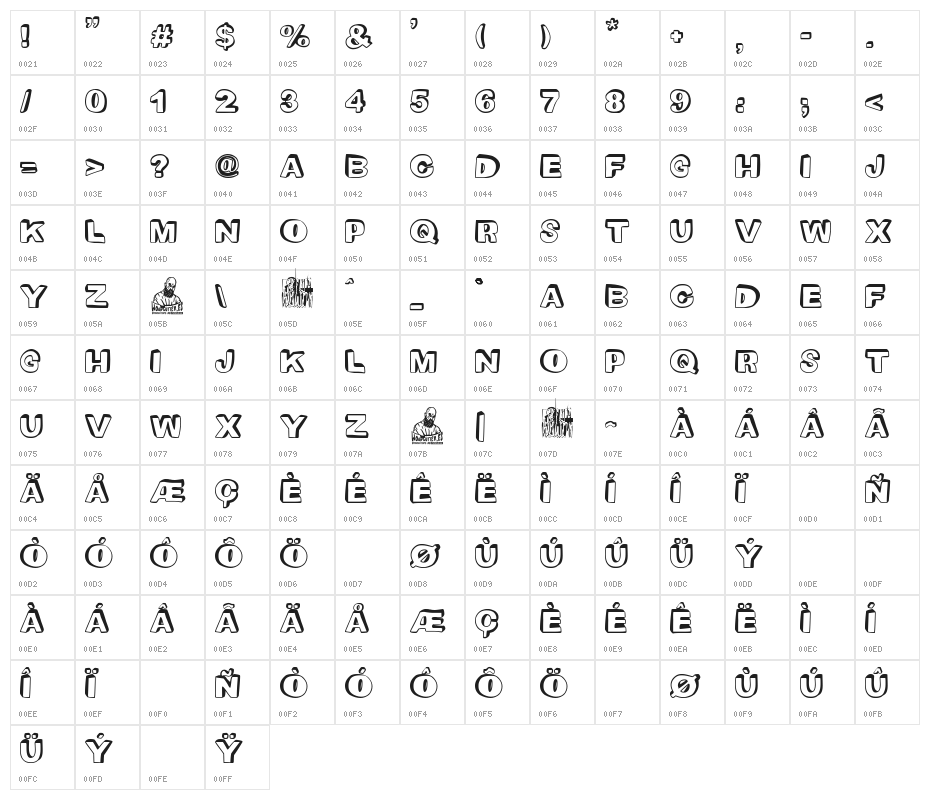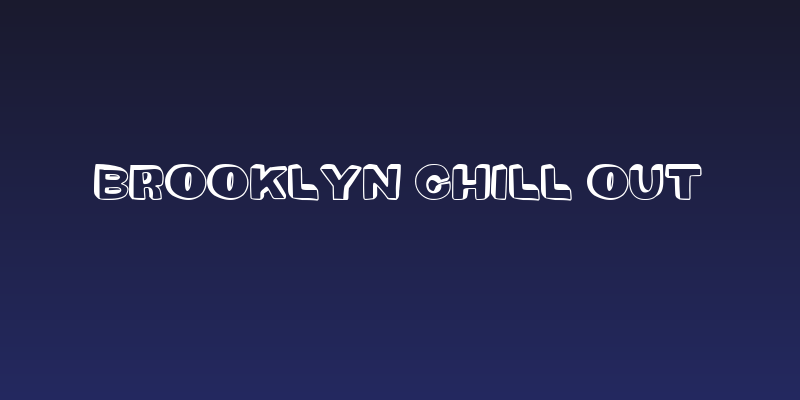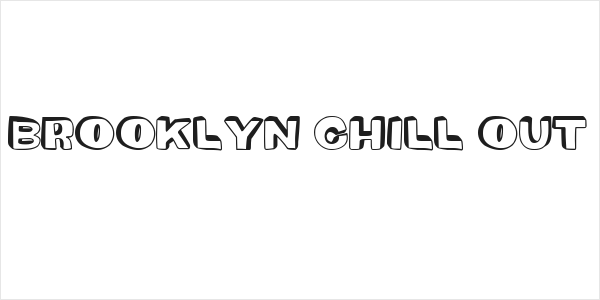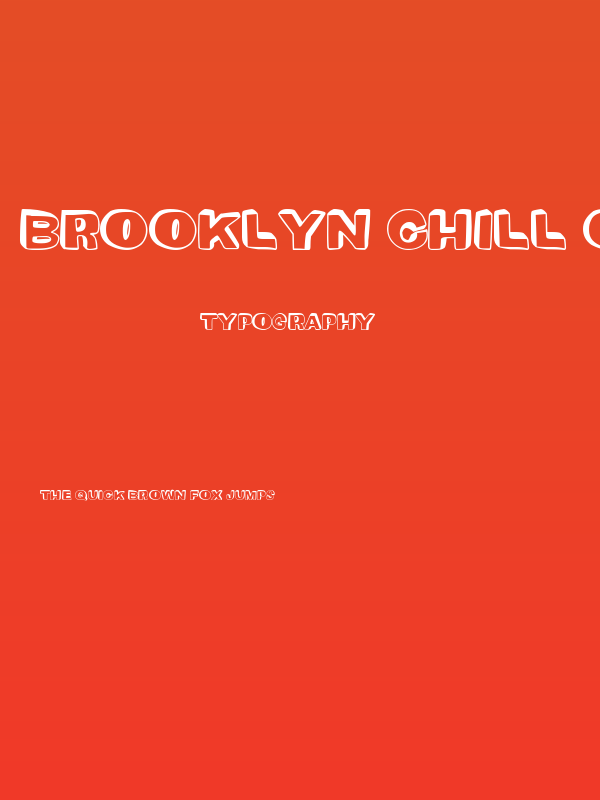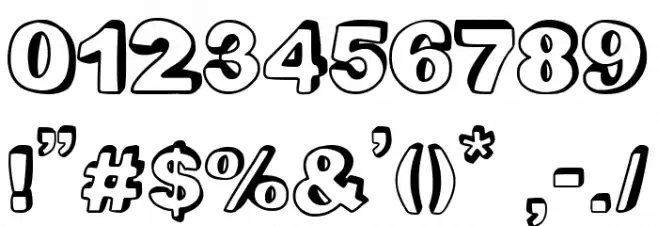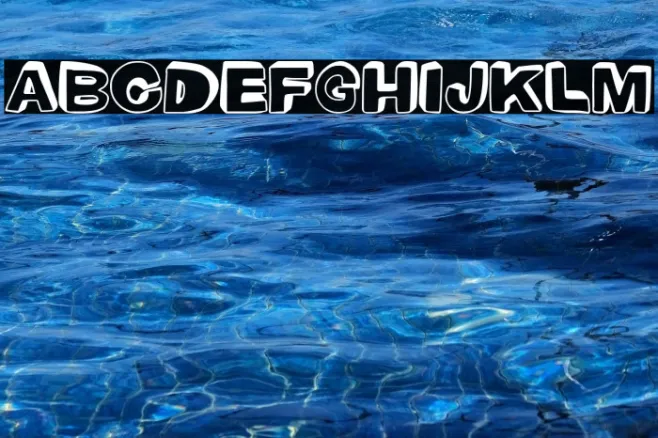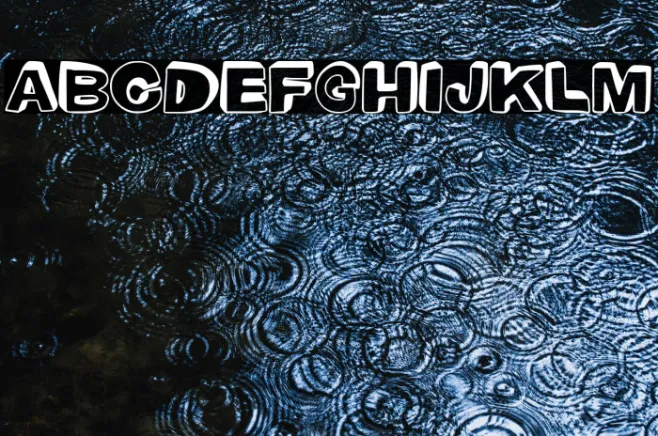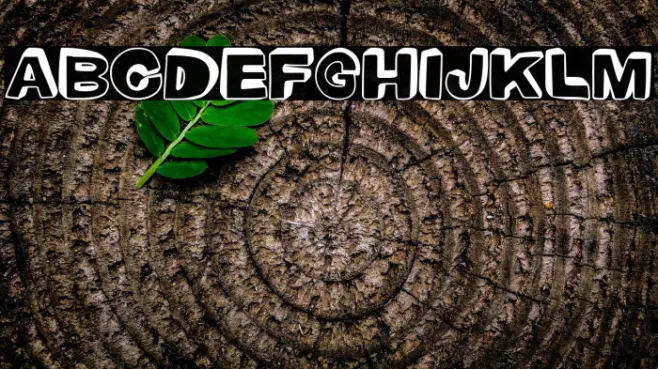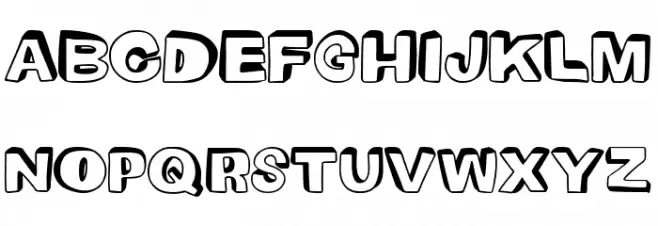
Brooklyn Chill Out Font
Brooklyn Chill Out Description
This font features a bold, playful style with a three-dimensional effect, giving each character a sense of depth and movement. The letters are outlined with a thick black border, enhancing their visibility and making them stand out. The interior of each character is filled with a solid color, providing a striking contrast against the outline. The overall design is reminiscent of comic book lettering, with a fun and dynamic appearance. This font is perfect for projects that require a lively and engaging visual impact, such as posters, banners, and children's book covers. Its unique style captures attention and adds a touch of whimsy to any design.
| Overall Style | Playful, Comic |
| Proposed Projects | Ideal for posters, banners, children's books, and playful branding. |